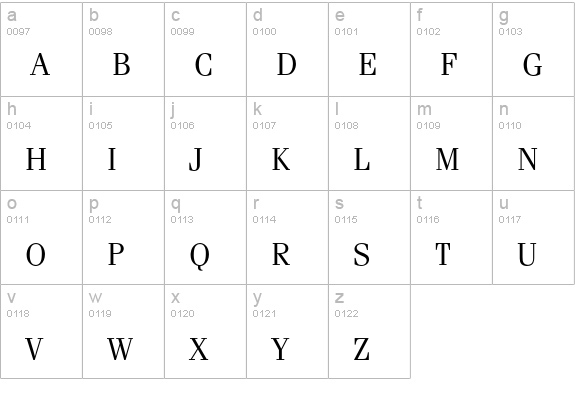
Fenice* Expert Light is a refined, elegant variant in the Fenice* typeface family \xE2\x80\x94 well suited to elegant body text, refined sub-headings, and luxury branding.
Fenice Expert Light font is a sophisticated and elegant typeface that exudes professionalism and modernity. With its clean lines and sleek design, this font is perfect for a wide range of design projects, from branding to editorial layouts. The slender and refined letterforms of Fenice Expert Light bring a sense of sophistication and style to any text. What makes Fenice Expert Light font even more appealing is that it is freely available to download at FontsMarket.com. This means that you can easily access and use this high-quality font in your creative projects without any cost. Whether you are working on a website, a logo, or a printed piece, Fenice Expert Light font will add a touch of elegance and class to your designs. Don't miss out on the opportunity to enhance your projects with the timeless beauty of Fenice Expert Light font. Download it for free today at FontsMarket.com and elevate your design work to the next level.